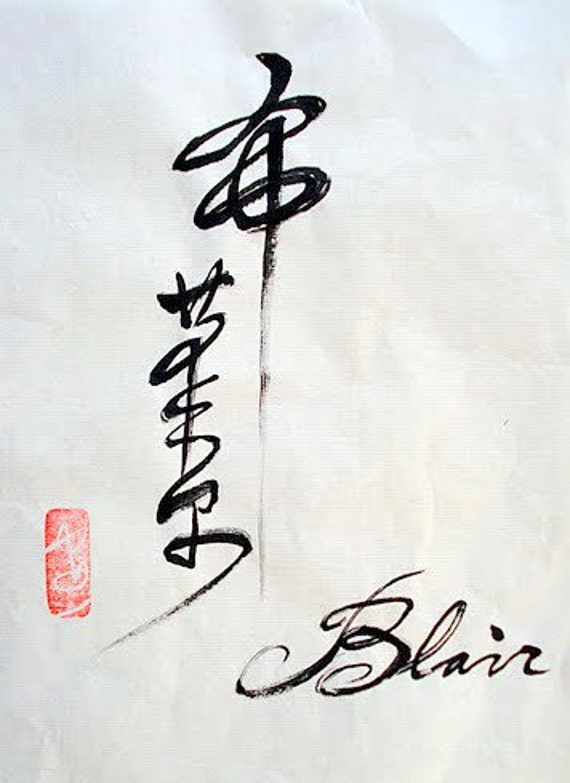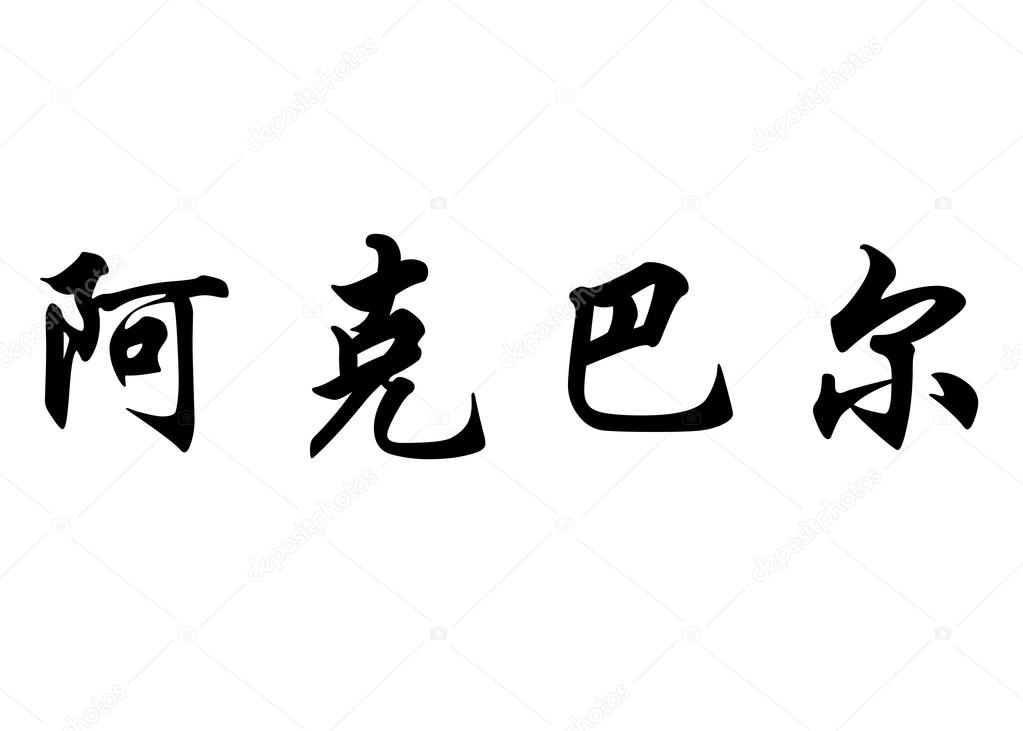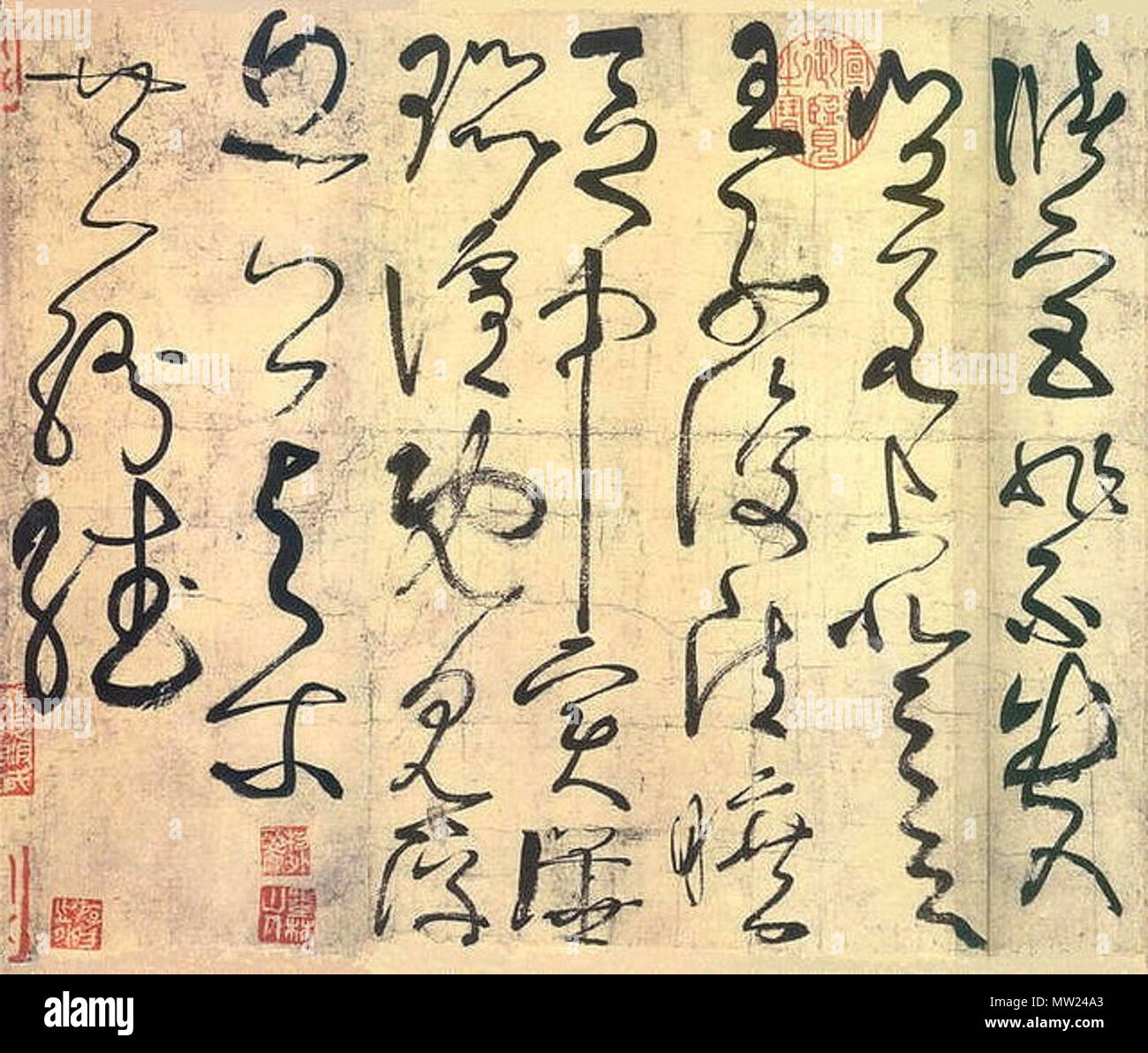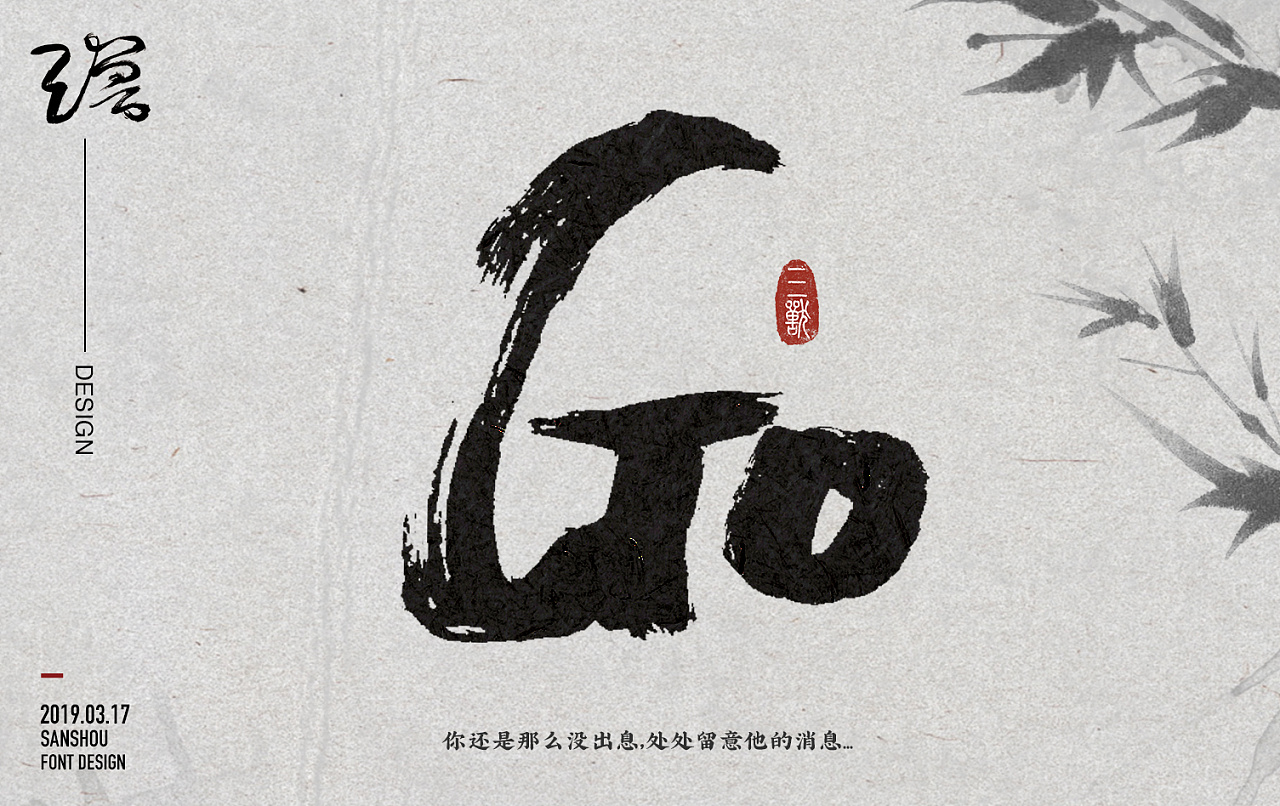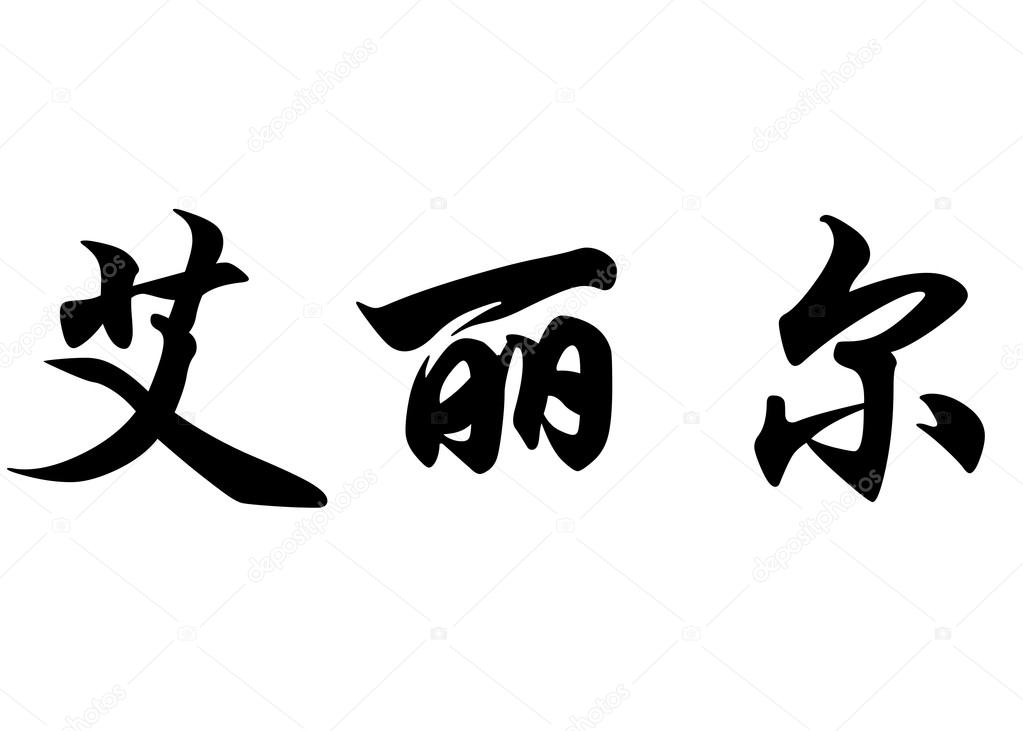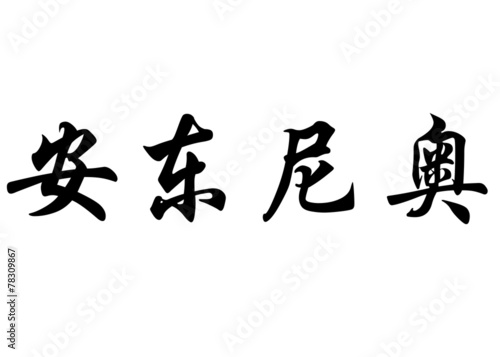
Gang of Three It is very distinct font that contains some elements of chinese calligraphy while still being English letterforms. There are other fonts available in additional to calligraphy.
According to Stanley-Baker Calligraphy is sheer life experienced through energy in motion that is registered as traces on silk or paper with time and rhythm in shifting space its main ingredients Calligraphy has also led to the development of many forms of art in China including seal carving ornate paperweights and inkstonesWikipedia Data from.
Chinese calligraphy english font. Xuke Li Chinese calligraphy Font-Simplified Chinese. Fully-Connected Layers to perform font style transfer learning of English fonts. Chinese Calligraphy Fonts English.
10 20 30 40 50 60 70 80 90 100 120 150 200orientation. The Wonton font imitates Chinese script using the alphabet.
Font family from which Windows 30s default Traditional Chinese font Ming Light is derived. Calligraphy is considered as one of the four most-sought skills and hobbies of ancient Chinese literati along with playing stringed musical instruments the board game Go and painting. DLCMingMedium DLCMingBold 華康中明體 華康粗明體.
The essential challenge of Chinese calligraphy is to balanc9Brush ink paper and instone called the Four Treasures of the Study are the key instruments for writing Chinese calligraphy. Duanning Ink Brush Semi-Cursive Script Chinese Font-Simplified Chinese. Calligraphy fonts are stylized ie2My favourite would definitely have to be.
Distinguishing features of Chinese painting and calligraphy include an emphasis on motion charged with dynamic life. The free chinese calligraphy fonts which.
9 of 1052 families. Kanban is the work of British designer Ed Bugg an all capital oriental style typeface. Either way you should be aware that these are two largely separate disciplines0Wasim The answer is Microsoft Word is at its core a word processing application.
Making the Web Beautiful with Chinese Calligraphy Fonts English. Beautiful Ink brush Calligraphy Font Style -Simplified Chinese Fonts. The tool allows quick conversion of simplified Chinese to traditional Chinese fonts and vice versa.
Japan hengshan writing brush Font-Traditional Chinese. Ive selected a font in the style group 2 but some characters are missing on the calligraphy. The Wonton font imitates Chinese script using the alphabet.
There are some general standardizations of the various styles of calligraphy in this tradition. Calligraphy is an ancient writing technique using flat edged pens to create artistic lettering using thick and thin lines depending on the direction of the stroke. The free chinese calligraphy fonts which.
9 of 1052 families. Jishi Chen Xing Kai Font-Simplified Chinese. Simplified or traditional Chinese ex中国 or 中國 output.
Muyao-Softbrush Open Source Font Simplified Chinese Fonts. Beautiful Ink brush Calligraphy Font Style -Simplified Chinese Fonts.
Xuke Li Chinese calligraphy Font-Simplified Chinese. Indeed when selecting a style group 2 font the input text must be in traditional Chinese charactersdirection. - My favourite would definitely have to be.
The font design is well presented. Discover and customize the font Chinese Calligraphy and other similar fonts ready to share in Facebook and Twitter. Jishi Chen Xing Kai Font-Simplified Chinese.
However either western calligraphy or Chinese or Arabic calligraphy they have strict rules and shapes with a geometrical order of lining on the page each character with a precise stroke order. This type of expression has been widely practiced in China and has been generally held in high esteem across East Asia. Simplified Chinese ex中国 output.
Create your own one Chinese httpschinesegratistoolschinesecalligraphyChinese Calligraphy Enter your Chinese text here and our tool will create a calligraphy for you. Gang of Three Font 139K views I am not sure what you are looking for. Benmo Jun Song 本墨钧宋 is cute and modernised display Chinese free font.
Gang of Three It is very distinct font that contains some elements of chinese calligraphy while still being English letterforms. Di culty in obtaining training data. RenDong Yang Bamboo stone -Semibold Open Source Font Simplified Chinese FontsPDF Chinese Calligraphy Font Classi cation and Transformationcs229stanfordeduproj2016reportDengWangRen.